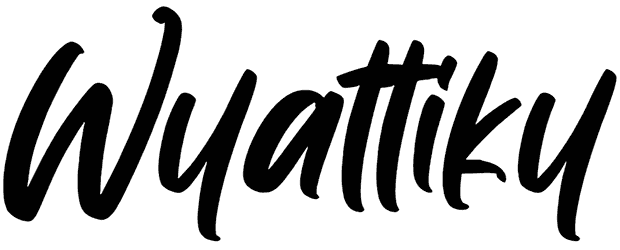
Wyattiky Font
Deep down, we all know the fact that in order to design high-end graphic content, you need to use a unique script font such as Wyattiky that carries a sense of playfulness, disorder, dynamic, and whimsical. If you are in the middle of creating movie posters, video game banners, editorial projects, and social media posts, this brush font would be ideal for you.